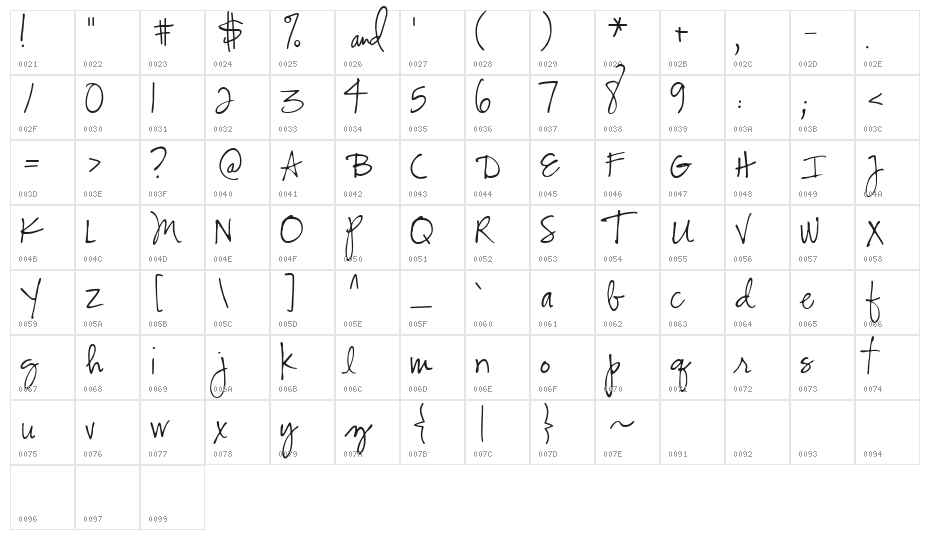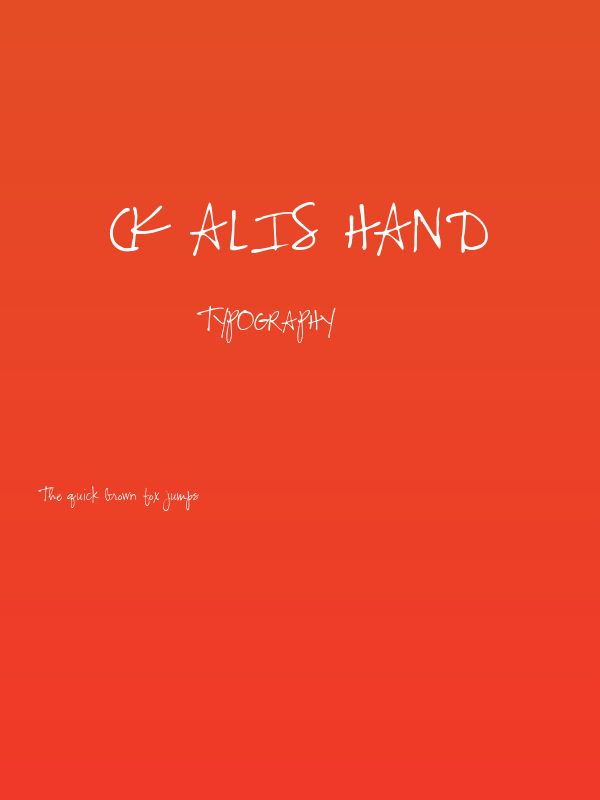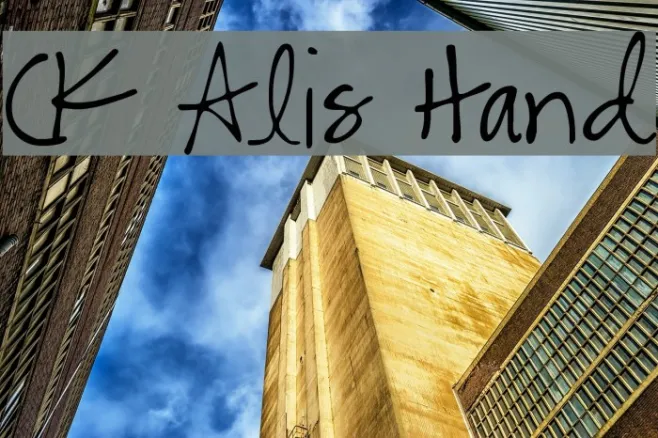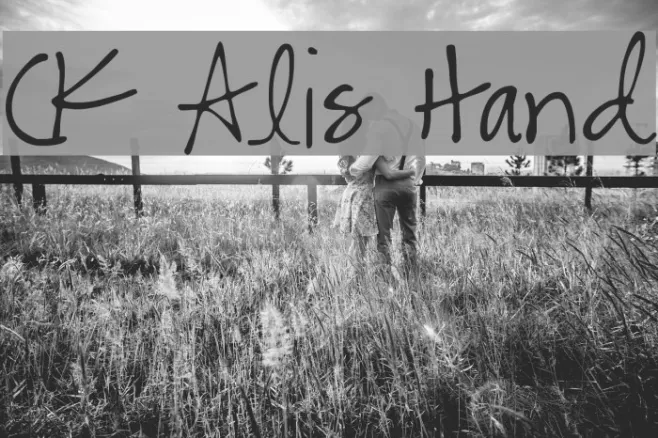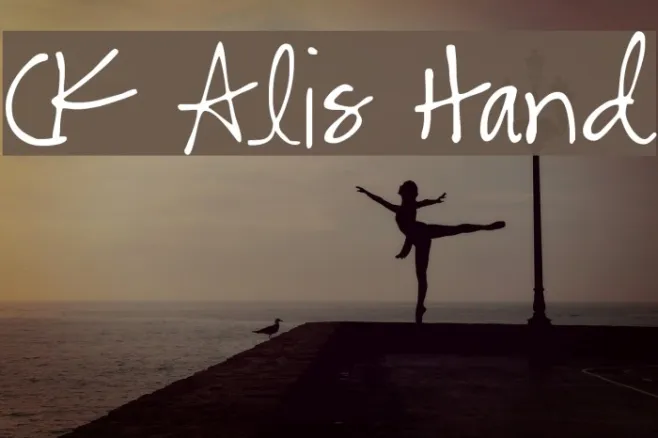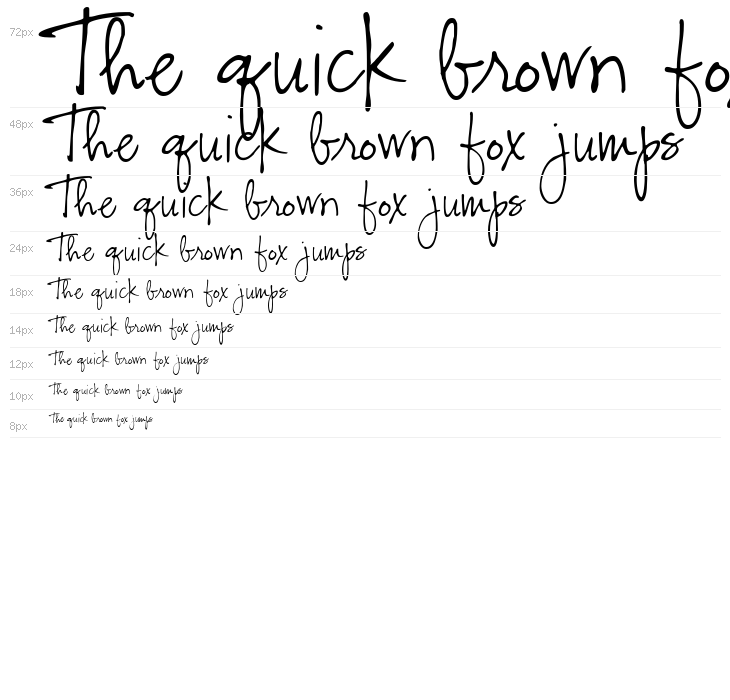
CK Alis Hand Font
CK Alis Hand Description
This font exudes a casual and playful handwritten style, characterized by its fluid and dynamic strokes. The uppercase letters are tall and slightly irregular, giving a sense of spontaneity and creativity. The lowercase letters maintain a consistent flow, with some letters like 'g' and 'y' featuring distinctive loops. Numbers are crafted with a similar playful touch, while special characters blend seamlessly with the overall aesthetic. The font's informal nature makes it ideal for projects that require a personal and approachable feel.
| Overall Style | Casual |
| Use Case | Logos, Headlines, Informal text |
| Proposed Projects | Ideal for greeting cards, personal branding, casual invitations, and creative social media graphics. |